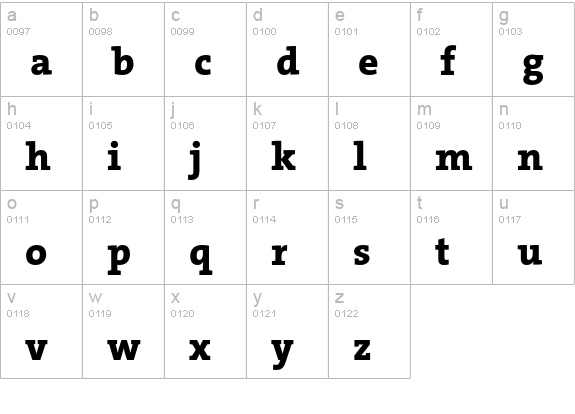
TheSerif ExtraBold Plain Font Details
TheSerif ExtraBold Plain is an extra-heavy, attention-grabbing variant in the TheSerif typeface family \xE2\x80\x94 well suited to high-impact headlines, posters, and bold branding.
TheSerif ExtraBold Plain font is a stunning display typeface that exudes power and sophistication. With its bold and robust design, it commands attention and leaves a lasting impression. This font is perfect for headlines, logos, posters, and any other design project that requires a strong and impactful visual statement. One of the standout features of TheSerif ExtraBold Plain font is its versatility. It can seamlessly adapt to various design styles, whether it be modern, classic, or even futuristic. Its clean and sharp lines give it a contemporary edge, while its subtle curves add a touch of elegance. What makes TheSerif ExtraBold Plain font even more appealing is that it is available for free download at FontsMarket.com. This means that designers and creatives can access this exceptional font without any cost. It is a valuable resource that allows designers to elevate their work without breaking the bank. Download TheSerif ExtraBold Plain font now and add a touch of boldness and sophistication to your designs. Whether you are designing a magazine cover, a branding project, or a website, this font will undoubtedly make a statement and captivate your audience. Don't miss out on this incredible opportunity to enhance your creative projects with this freely available font.